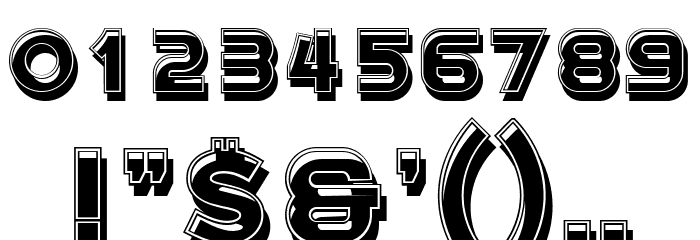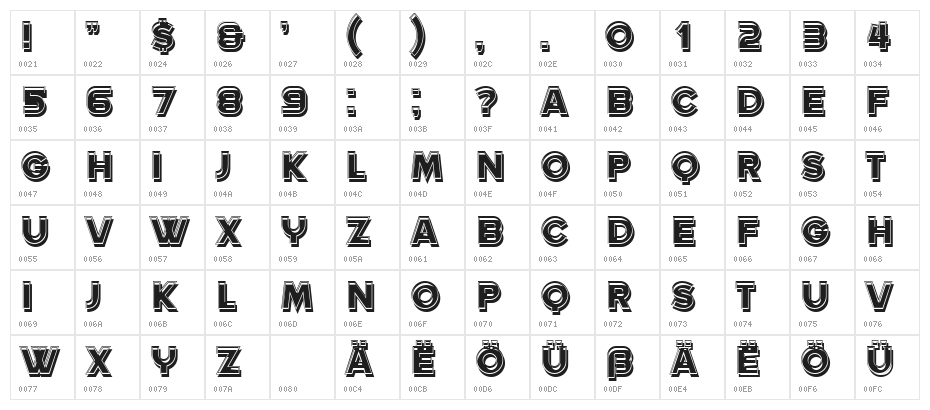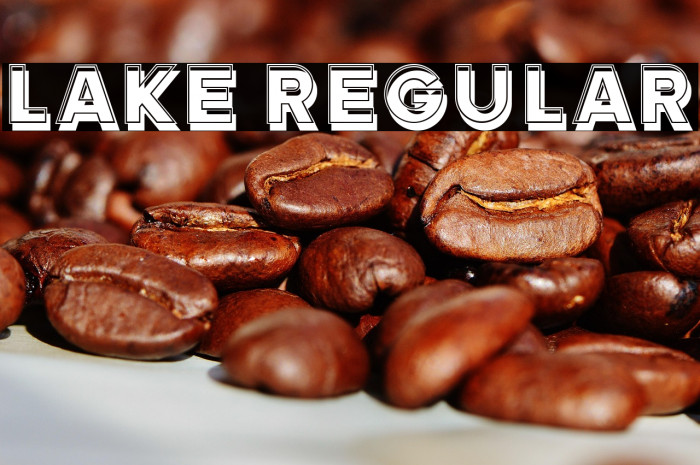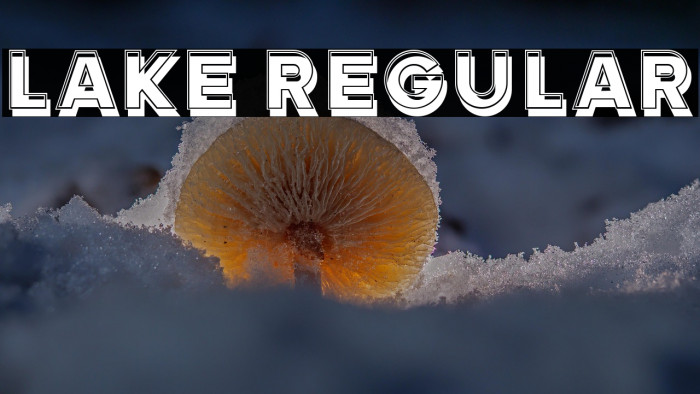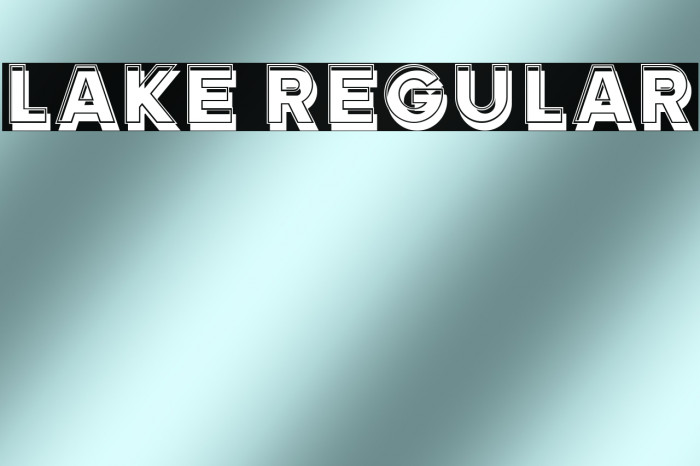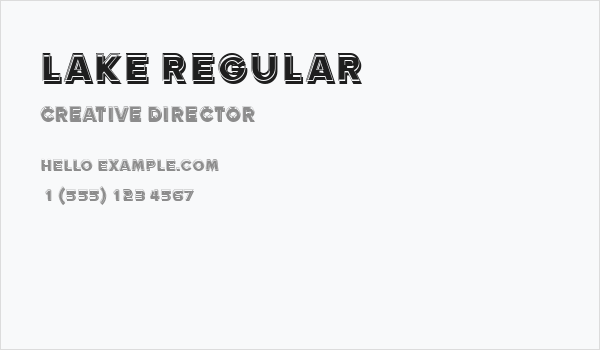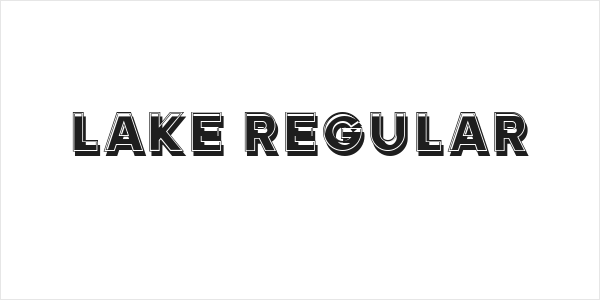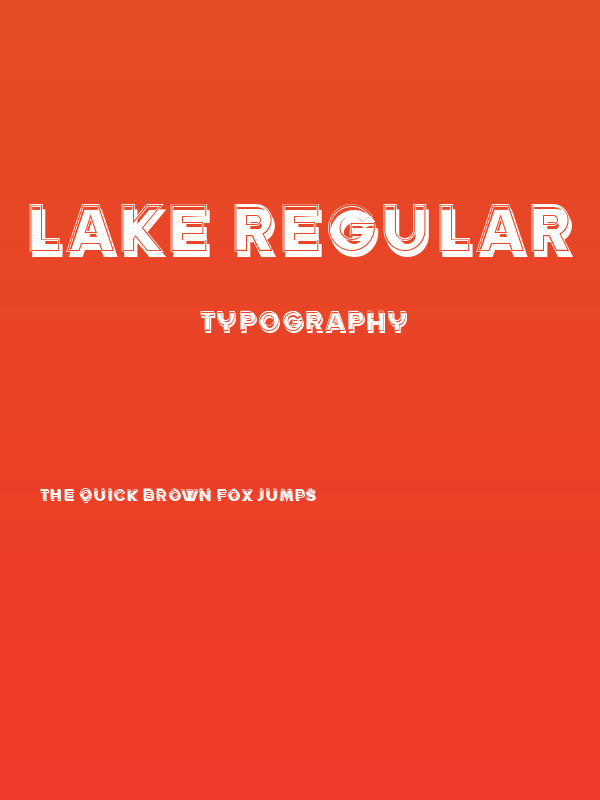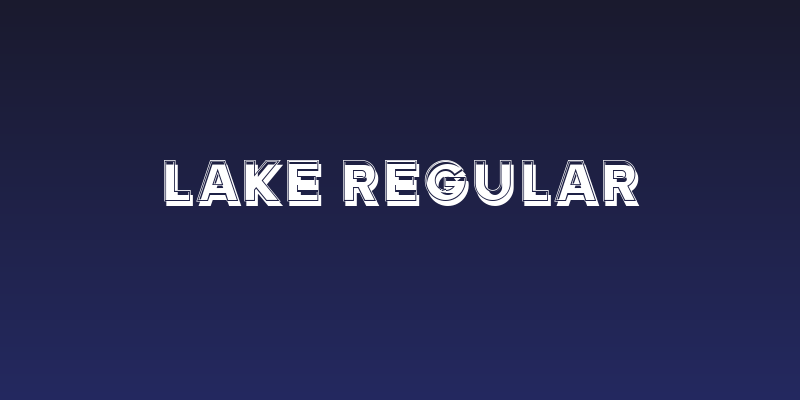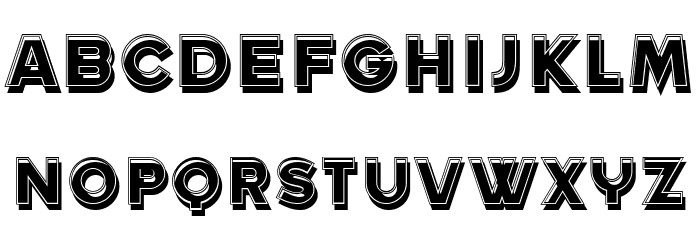
Lake Regular Font
Lake Regular Description
This font features a bold, geometric design with a three-dimensional effect that gives it a striking and modern appearance. The characters are uppercase and have a consistent width, creating a uniform look. The font's shadowing adds depth and a sense of movement, making it stand out in any design. The numbers and special characters maintain the same bold style, ensuring consistency across all text elements. Its clean lines and structured form make it highly legible, even at smaller sizes.
| Proposed Projects | Ideal for posters, headlines, branding, and any project requiring a modern, eye-catching typeface. |